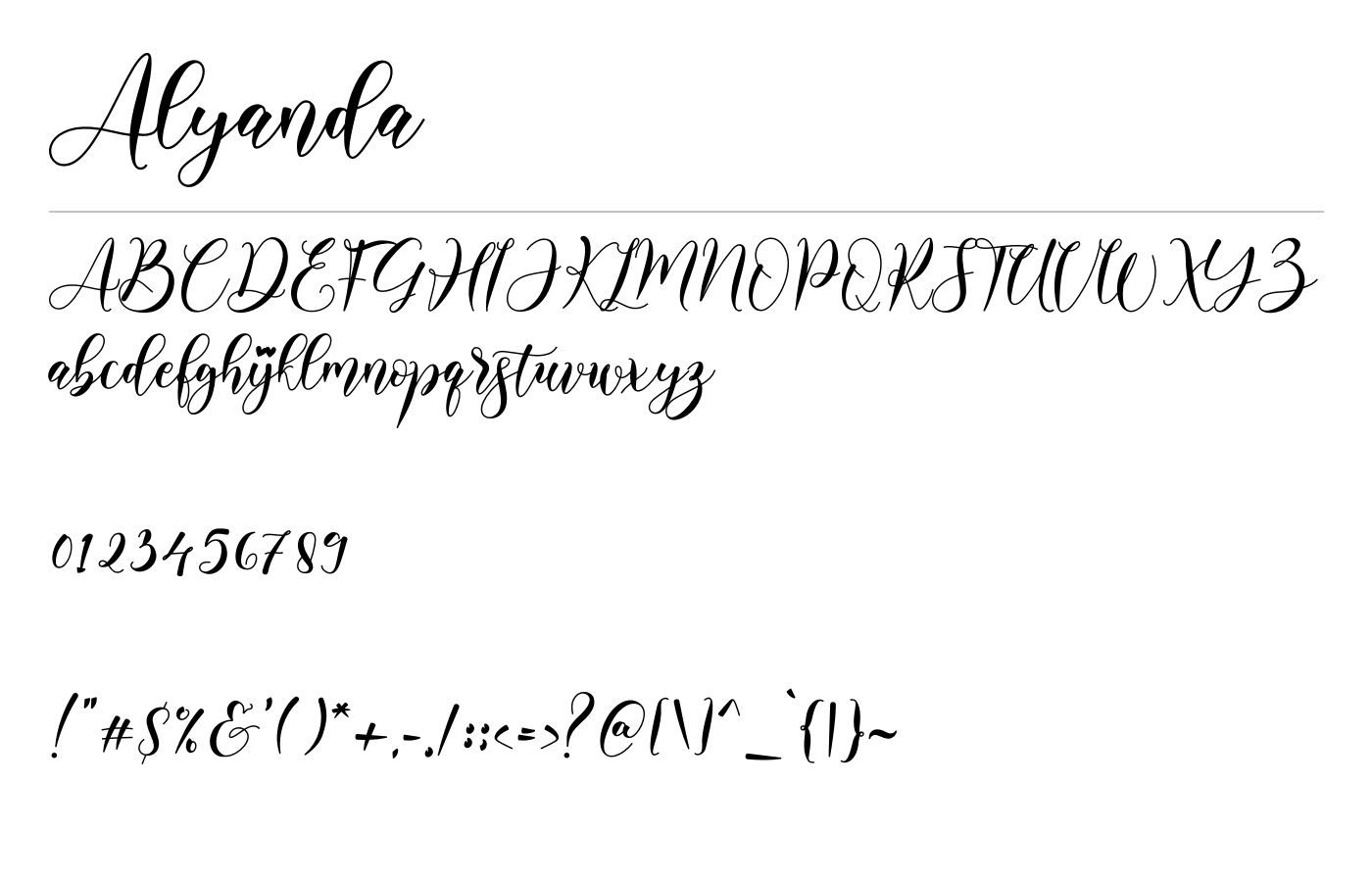
Alyanda is an elegant script font with a delicate, flowing style that combines smooth, calligraphic strokes and charming flourishes. Its light weight and graceful curves make it perfect for feminine branding, invitations, and luxury packaging, while maintaining readability and a sophisticated, handcrafted feel. This font works especially well for creative projects that require a romantic or personalized touch.
Alyanda Font
About Alyanda Font
| Font family | Alyanda Font |
| Designer | Nissa Nana |